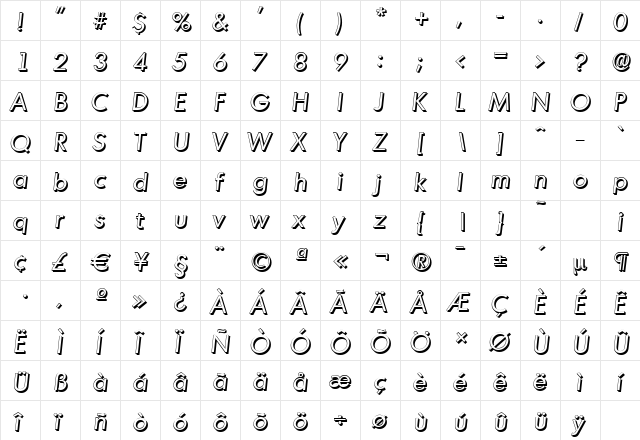
MontrealShadow Italic Font Preview
MontrealShadow Italic
Design Context for MontrealShadow Typeface
MontrealShadow brings ornamental detail and strong personality to headlines and identities, where visual impact matters more than quiet functionality. The dynamic lean of this cut emphasises speed and emphasis in any layout.
Font Pairing: Pair with a clean neutral sans-serif for body copy to let MontrealShadow's character lead without overwhelming the composition.
Pro Tip: Use MontrealShadow exclusively at display sizes — it was designed to be seen, not read at length. Let a neutral companion handle body copy.